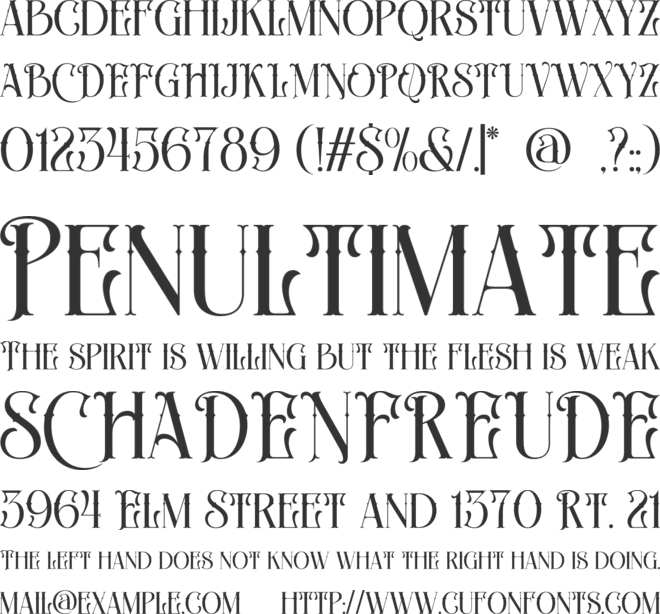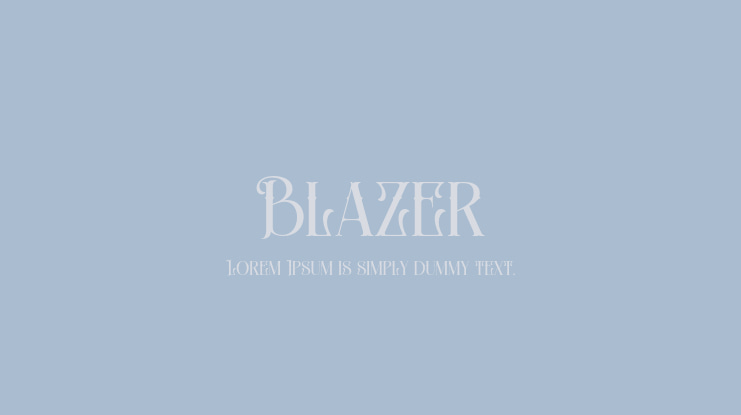
Blazer Font
Discover the Victorian-inspired font, Blazer, designed to bring a touch of vintage elegance to your designs. Transport your project back to the 1800s with this stylish typeface. The font package also includes complementary ornaments to enhance the classical, vintage, and Victorian aesthetic of your design effortlessly, adding a charming Victorian flair.